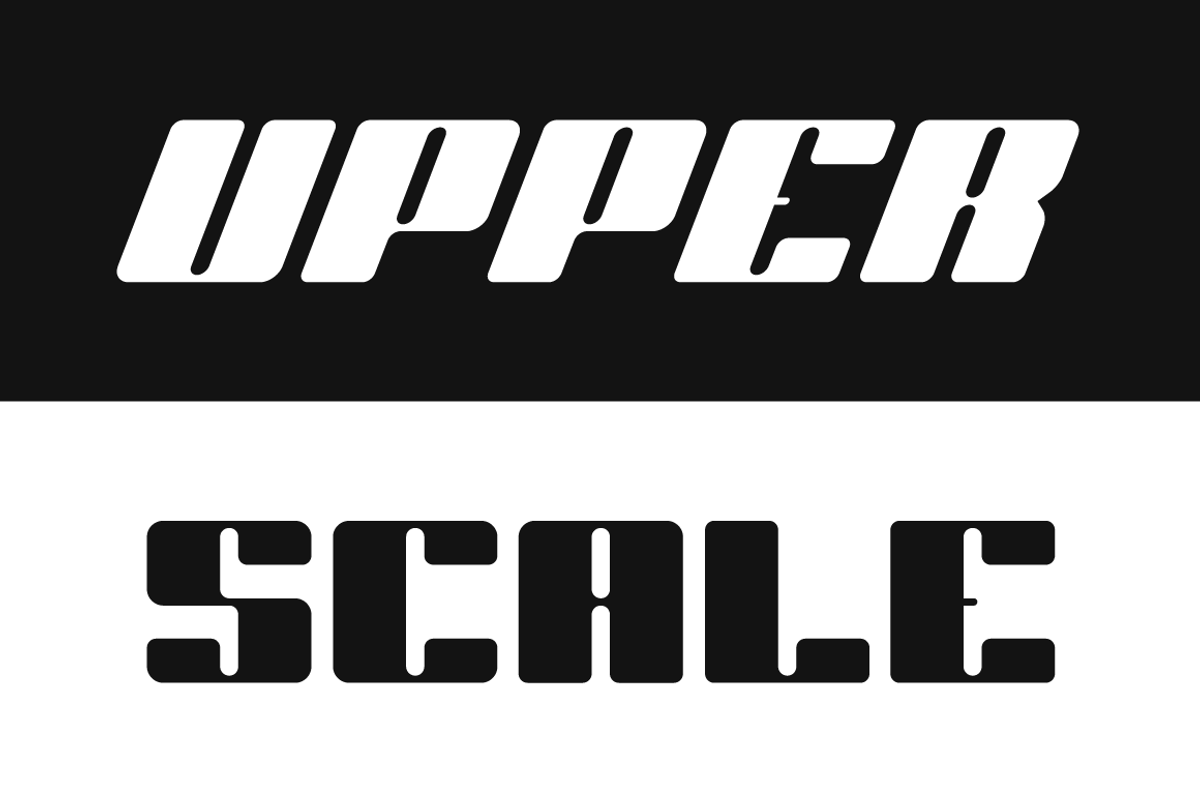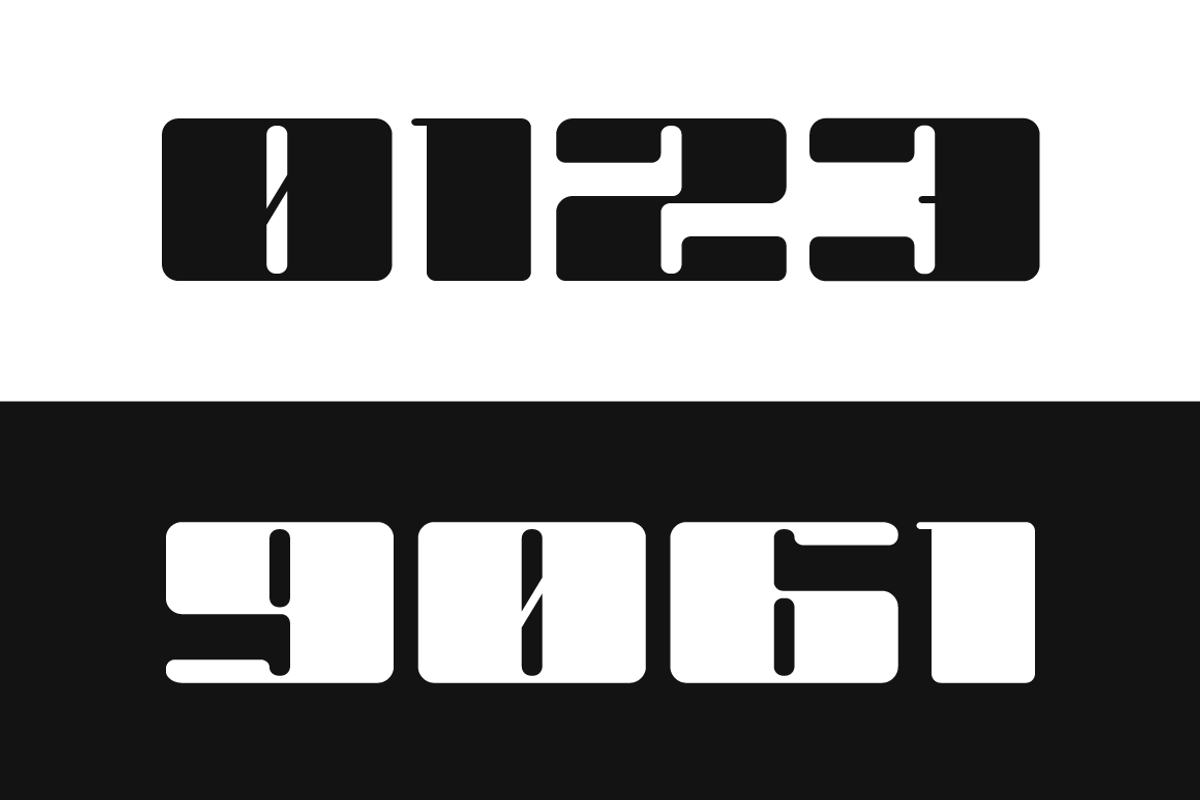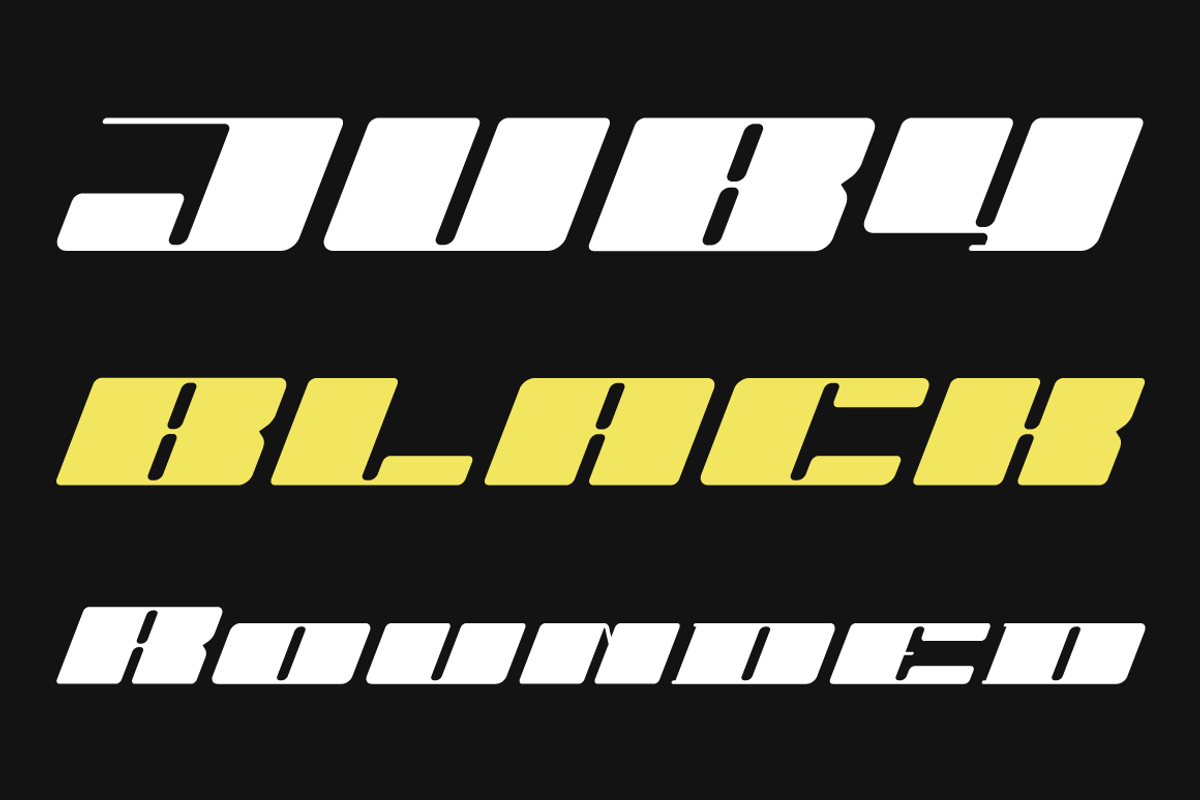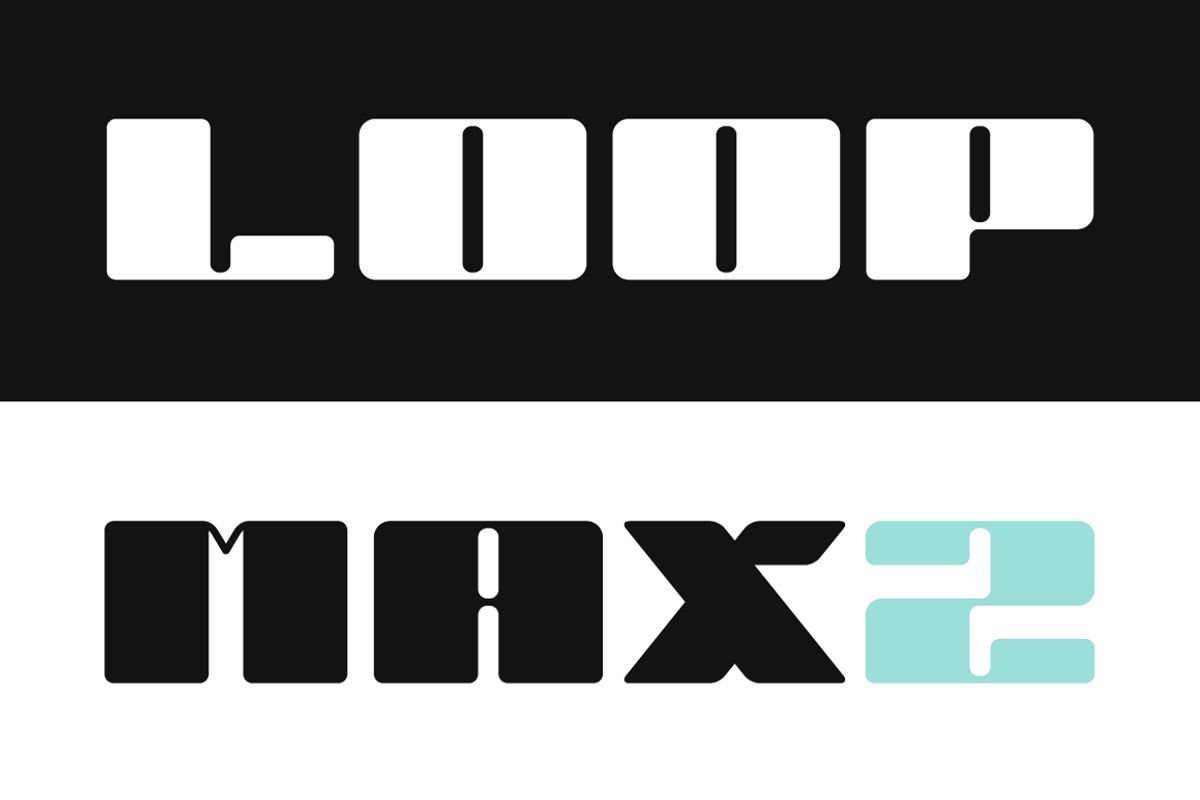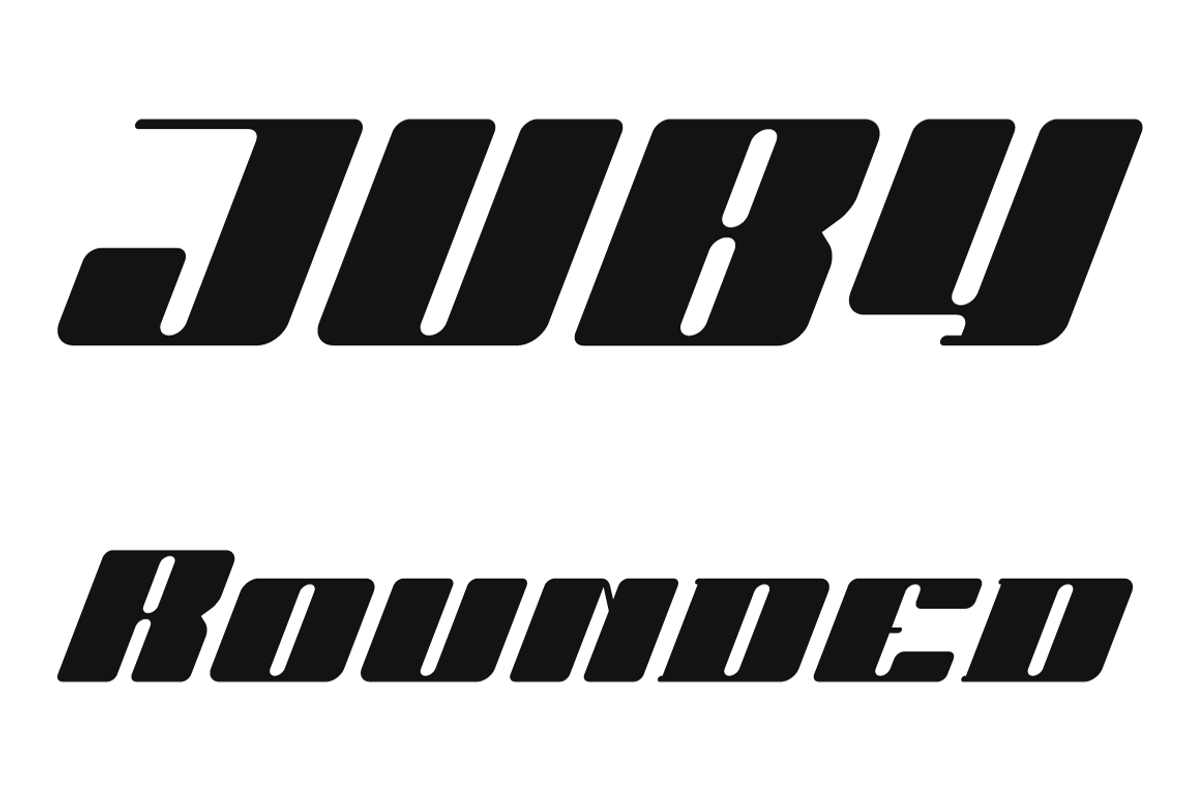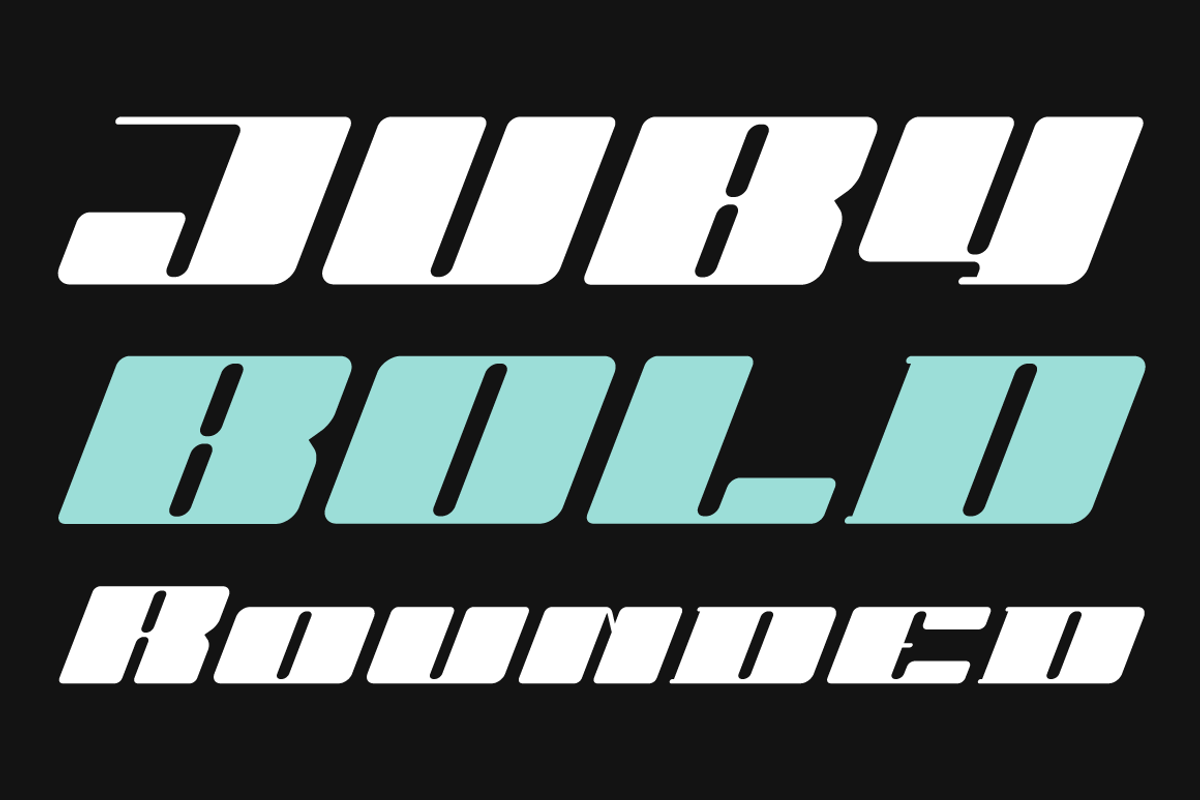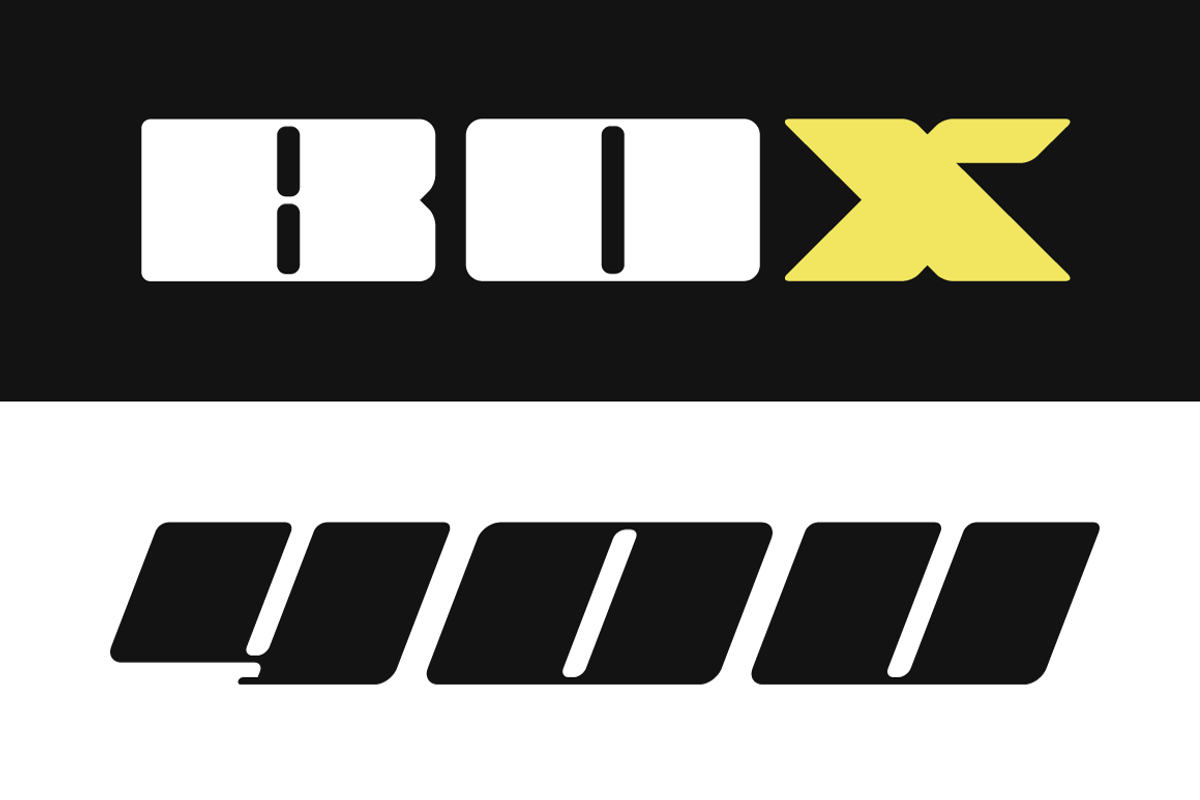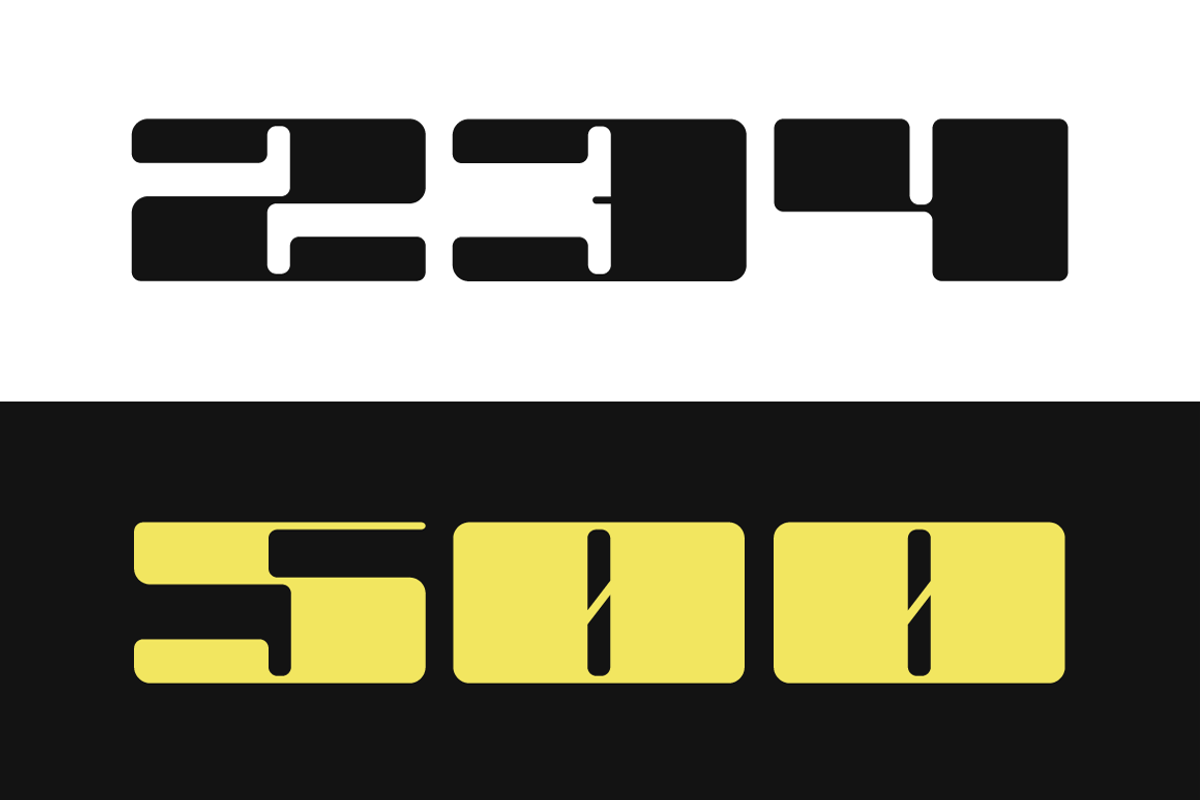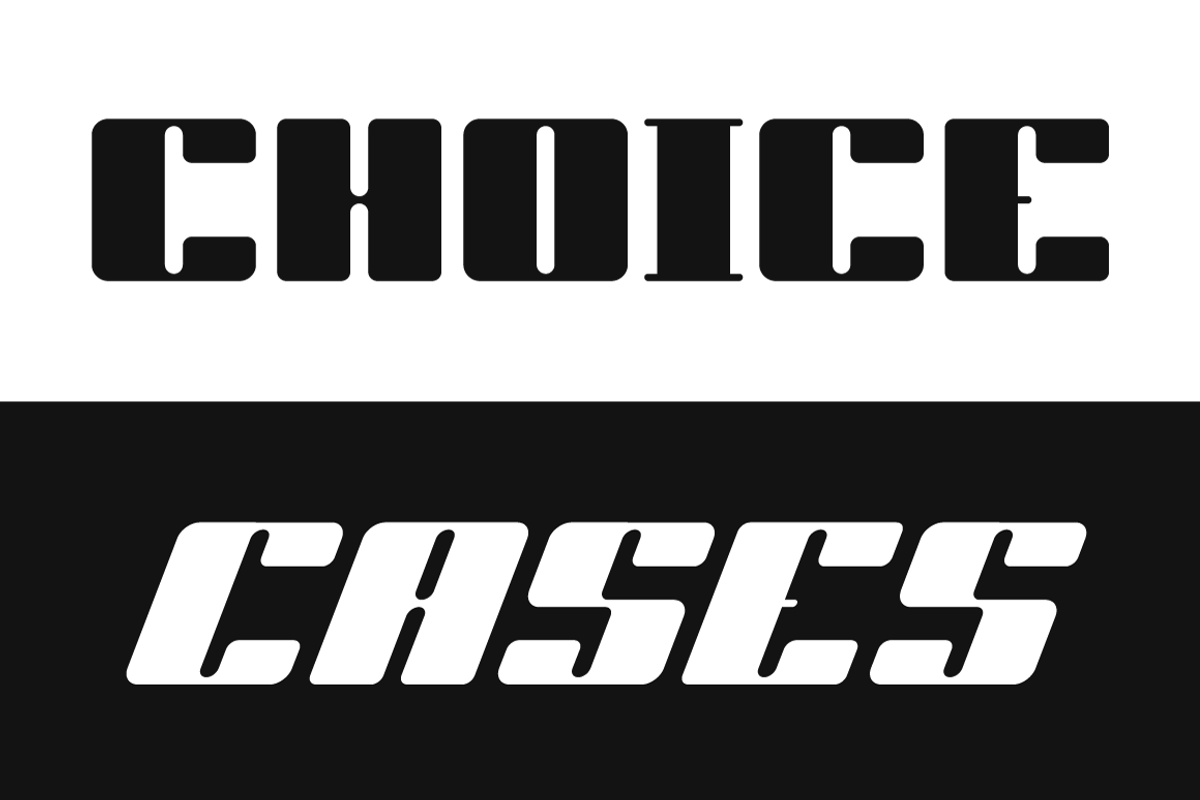
JUBY Rounded
JUBY Rounded - heavy, visible and distinctive display font, rounded brother of the JUBY Font: https://creativemarket.com/fontsphere/4794679-JUBY-Font-Family
Designed especially for display purposes. Can be used successfully in posters, headlines, visual identities, and everything needs to stand out.
Font containing uppercase and lowercase characters, numerals and a large range of punctuation. The family has 3 weights with matching italics.
Six fonts in the Family:
- JUBY Rounded
- JUBY Rounded Italic
- JUBY Rounded Bold
- JUBY Rounded Bold Italic
- JUBY Rounded Black
- JUBY Rounded Black Italic